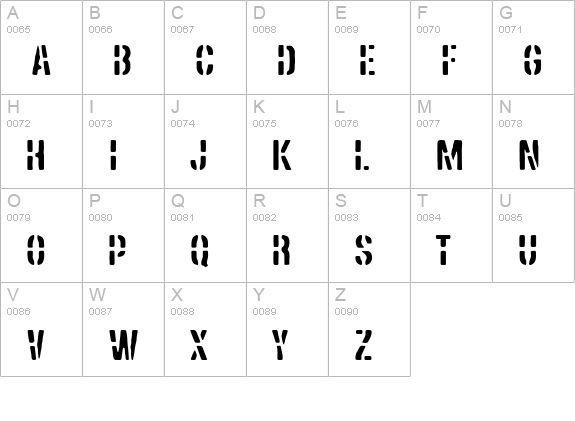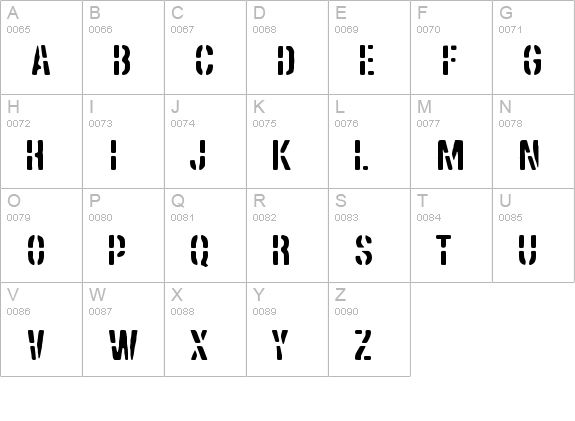
PFDiesel Cargo Font Details
PFDiesel Cargo font is a bold and rugged typeface designed for a strong and impactful visual presence. Inspired by industrial and mechanical elements, this font exudes power and durability, making it perfect for projects that require a gritty and robust aesthetic. With its sharp edges and distinctive style, PFDiesel Cargo font commands attention and adds a touch of raw energy to any design. The best part? PFDiesel Cargo font is available for free download at FontsMarket.com. Don't miss out on this opportunity to enhance your projects with this unique and dynamic typeface. Let PFDiesel Cargo font elevate your designs and make a lasting impression on your audience.